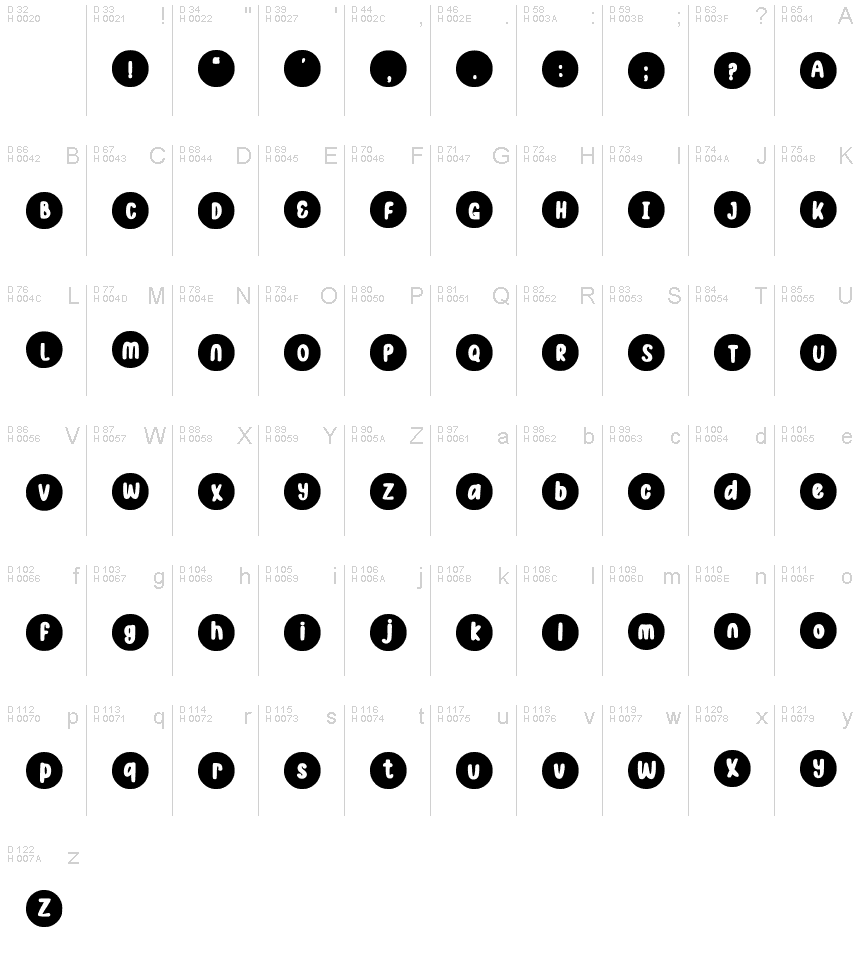
Sunogaru_asdonuts Regular
Sunogaru Asdonuts is a bold display font that adds a touch of playful sophistication to any project. Its decorative style is perfect for eye-catching headlines, branding, and packaging design. The unique shapes and curves of this typeface make it perfect for designs that require a bit more personality. Sunogaru Asdonuts can be used in various projects from food packaging, gaming titles, and fashion editorials to children's books and party invitations. With its bold weight, this font will definitely make your design stand out from the crowd.